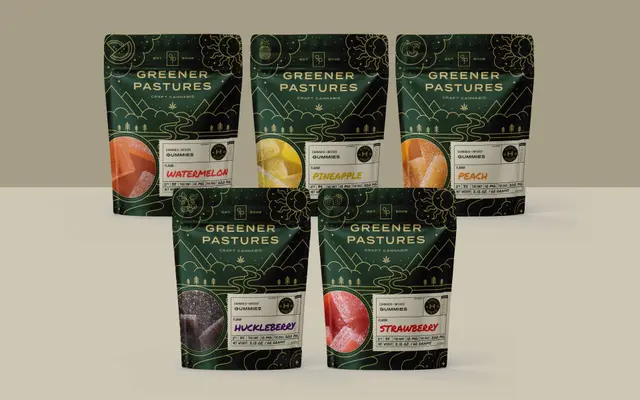
Termina
Fort Foundry · Mattox Shuler
A wide geometric sans by Mattox Shuler, spanning nine weights from Thin to Black with a high x-height suited to both display and small-scale use.
Termina sets itself apart from typical geometrics through its generously wide letterforms and high x-height, which maintain legibility at smaller sizes while giving it presence at display scale. Nine weights from Thin to Black cover a range of applications including advertising, logotypes, pull quotes and descriptive copy. OpenType features include small caps, oldstyle figures, fractions and super- and subscripts.
Termina is a geometric sans with wide, high-x-height letterforms. Fort Foundry categorises it as Sans and positions it within the geometric tradition, distinguished by its deliberately wide proportions.